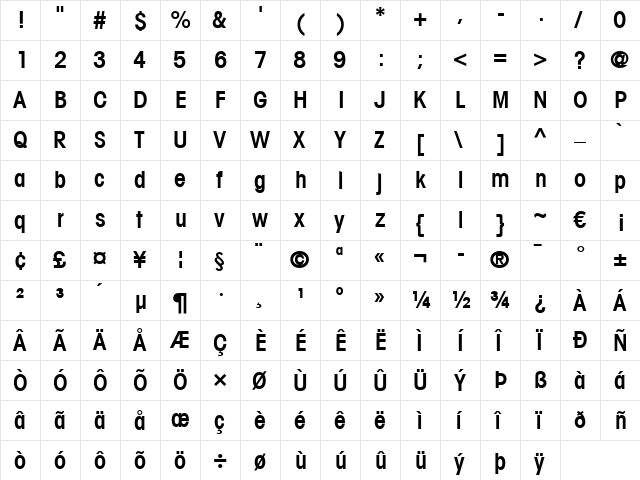
AvantGarde LT CondBook Bold Font Preview
Design Context for AvantGarde LT CondBook Typeface
AvantGarde LT CondBook takes a measured approach to typography — its balanced proportions and neutral character make it a reliable workhorse for both digital and print work. The heavy weight commands attention and anchors typographic hierarchies. The condensed width makes it efficient for tight spaces without sacrificing legibility.